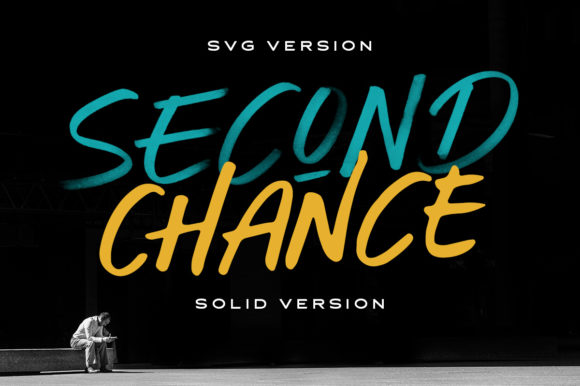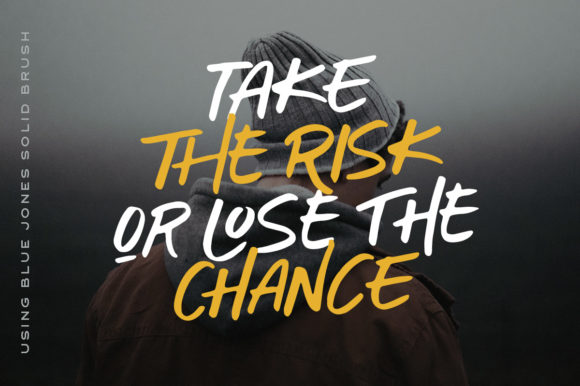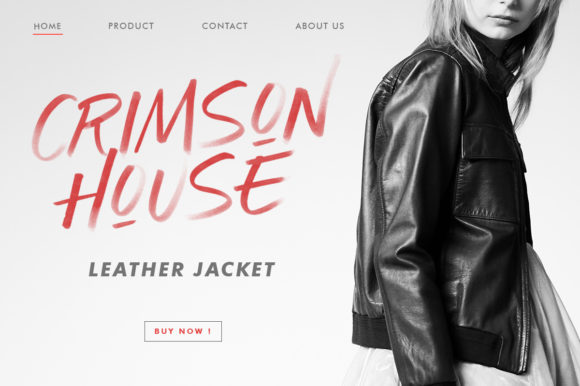
Blue Jones Font: A Bold Urban Display Font for Creative Branding
About the Blue Jones Font
Unleash your creativity with Blue Jones Font, a versatile font perfect for a wide range of applications. Blue Jones is a unique display font, featuring an urban style. Add this font to your favorite creative ideas and notice how it makes them come alive!
Blue Jones excels as a display font for headlines, short impactful statements, and branding elements where a bold, urban aesthetic is desired. It’s ideal for posters, logos, and packaging designs targeting a younger, trend-conscious audience. However, its strong character and condensed letterforms make it unsuitable for body text or extended reading. Small sizes will become difficult to read.
The font’s personality is assertive and modern. To balance this, consider pairing Blue Jones with a clean sans-serif like Open Sans for body copy or a more delicate script font such as Great Vibes for secondary text elements. A geometric sans-serif could also create a visually interesting contrast.
Avoid using Blue Jones in user interfaces or situations requiring high legibility across various sizes. Its urban edge is best utilized in short, impactful bursts of visual communication.
Blue Jones Font Usage Examples
Blue Jones Font Example